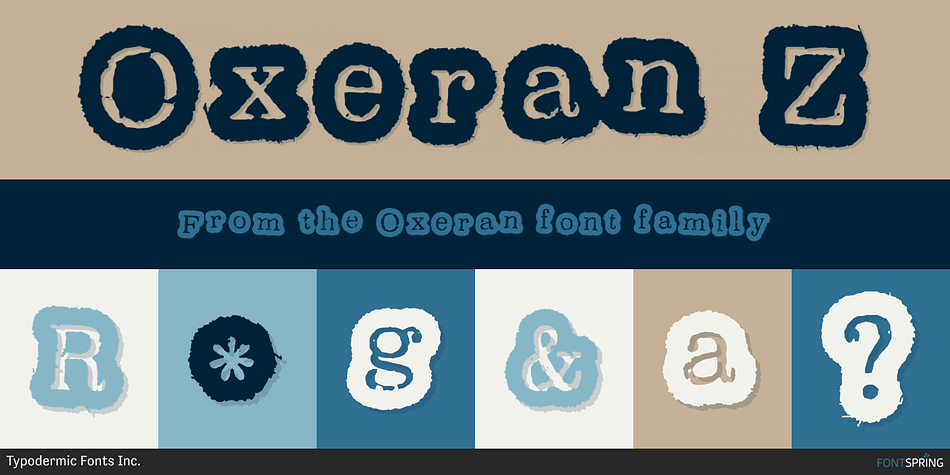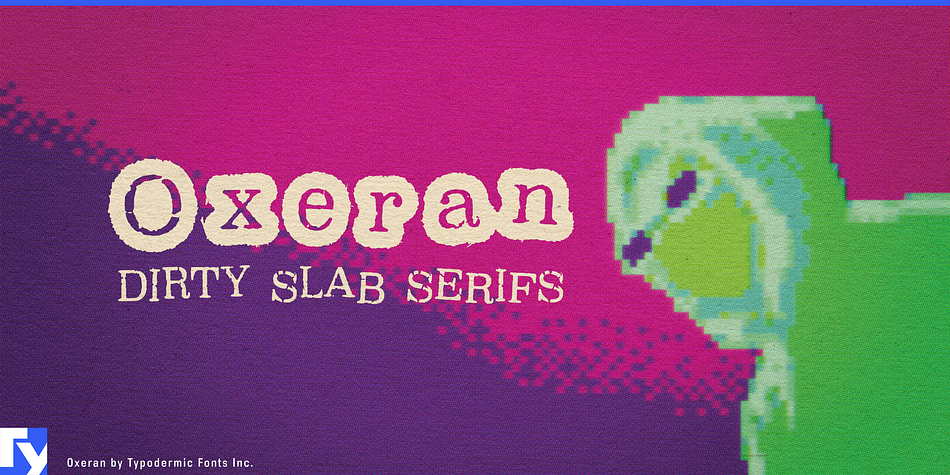
Oxeran Z
Oxeran is a grunge font family. This typeface has two styles and was published by Typodermic Fonts Inc.
In the realm of graphic design, where the power of typography can make or break a design, selecting the right font can be the difference between a masterpiece and mediocrity. And when it comes to grunge aesthetics, the stakes are even higher, as the right font can mean the difference between an edgy, rebellious message or one that falls flat.
Enter Oxeran and Oxeran Z, two fonts that epitomize punk with their grungy, raw, and unabashedly filthy appearance. These fonts aren’t for the faint of heart—they demand attention and command respect with their jagged edges and rough textures.
But don’t let their rough exterior fool you—these fonts are also highly functional. Their OpenType-savvy design allows for letter pair ligatures, which break up the monotony of repeating characters and add visual interest to your text. The result is a dynamic, energetic, and impatient message that grabs your audience by the collar and demands their attention.
Whether you’re designing a punk album cover, a protest poster, or a rebellious t-shirt, Oxeran and Oxeran Z are the fonts that will take your message to the next level. So, embrace the filth, let your typography speak volumes, and let the world know that you’re not to be trifled with.